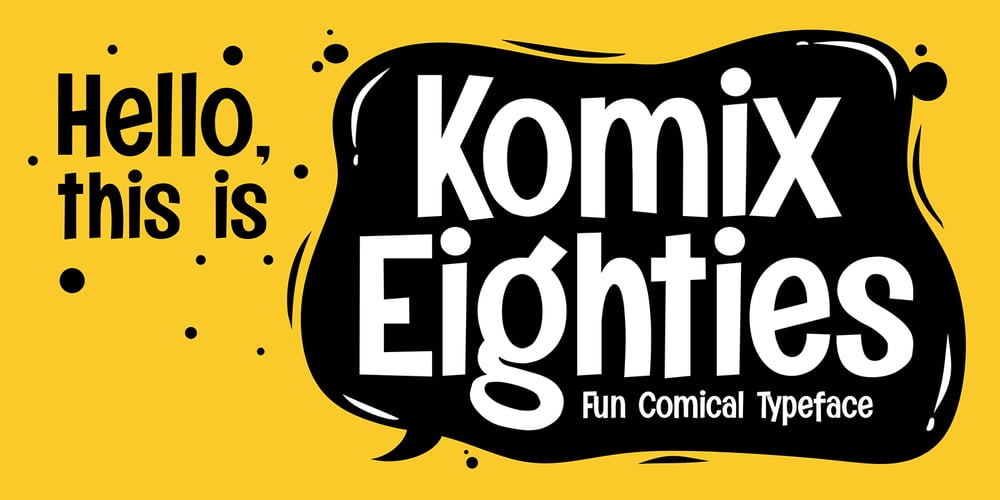
Komix Eighties Font Family was designed by Toni Dzulham, Icep Anwar Fadhil and published by Figuree Studio. Komix Eighties contains 3 styles and family package options. Say hello to Komix Eighties font.Made with love and joy. Comic look, so it will make your design more beautiful, cute, fun, and colorful. It comes With three awesome styles.Features:- Character Set A-Z (All-caps)- Numerals and Punctuation (OpenType Standard)- Accents (Multilingual characters)- PUA EncodeI hope you can enjoy the font ๐